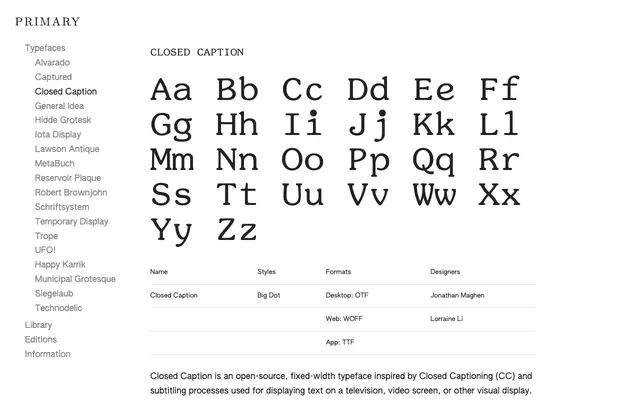
Closed Caption
Primary Foundry · Jonathan Maghen, Lorraine Li
A fixed-width, open-source typeface drawn from the visual language of closed captioning and broadcast subtitle systems.
Designed by Jonathan Maghen and Lorraine Li using the Font-Remix tool, it is offered in a single style called Big Dot, which features oversized tittles and punctuation marks within a 126-glyph set. Available in OTF, WOFF and TTF formats for print, web, app and broadcast use, it is released under the Open Font Licence, permitting free use, modification and redistribution.
Explicitly described as a fixed-width typeface, making mono the appropriate category. Its inspiration in closed captioning and television text display gives it a display-oriented character.